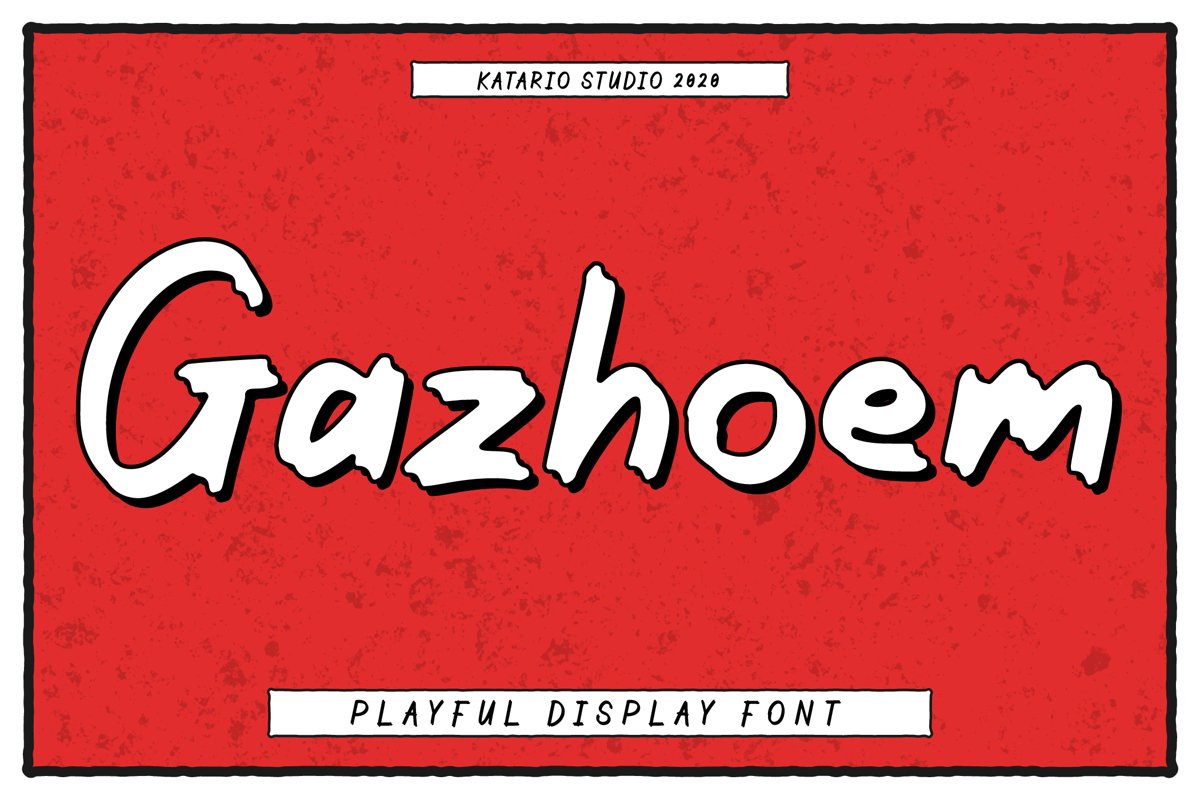
Gazhoem
Introducing, Gazhoem!
This is a hand drawn brush display typeface. Files come in OTF format and include western characters!
Gazhoem is great for:
Comic
Label
Music Cover Album
Invitations
Postcards
Video Titles
Social Media
Posters
Headers
Packaging
Websites
T-shirt
You name it!